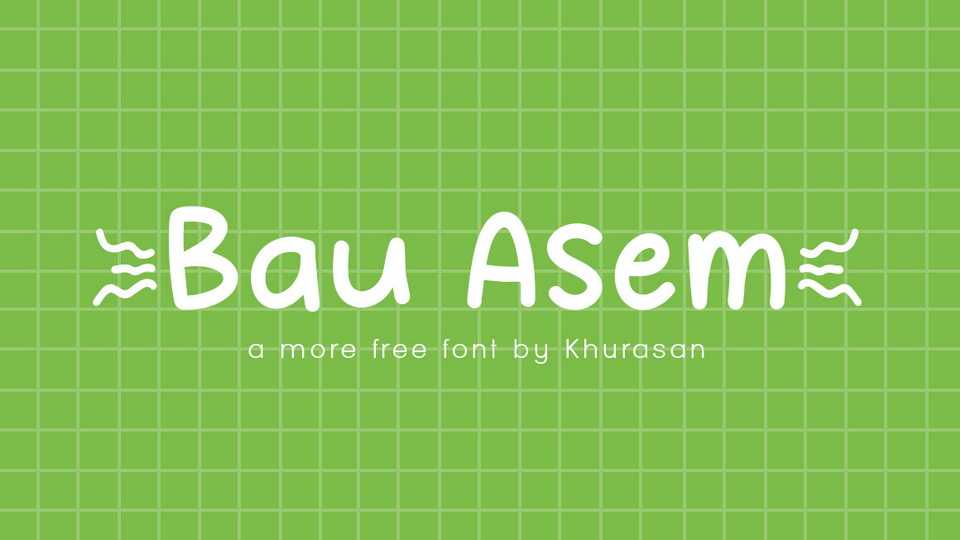
Download Bau Asem font, a simple and natural handwritten typeface. Bau Asem is perfect for comics, posters, logos, magazines, book covers, banners, and many more.